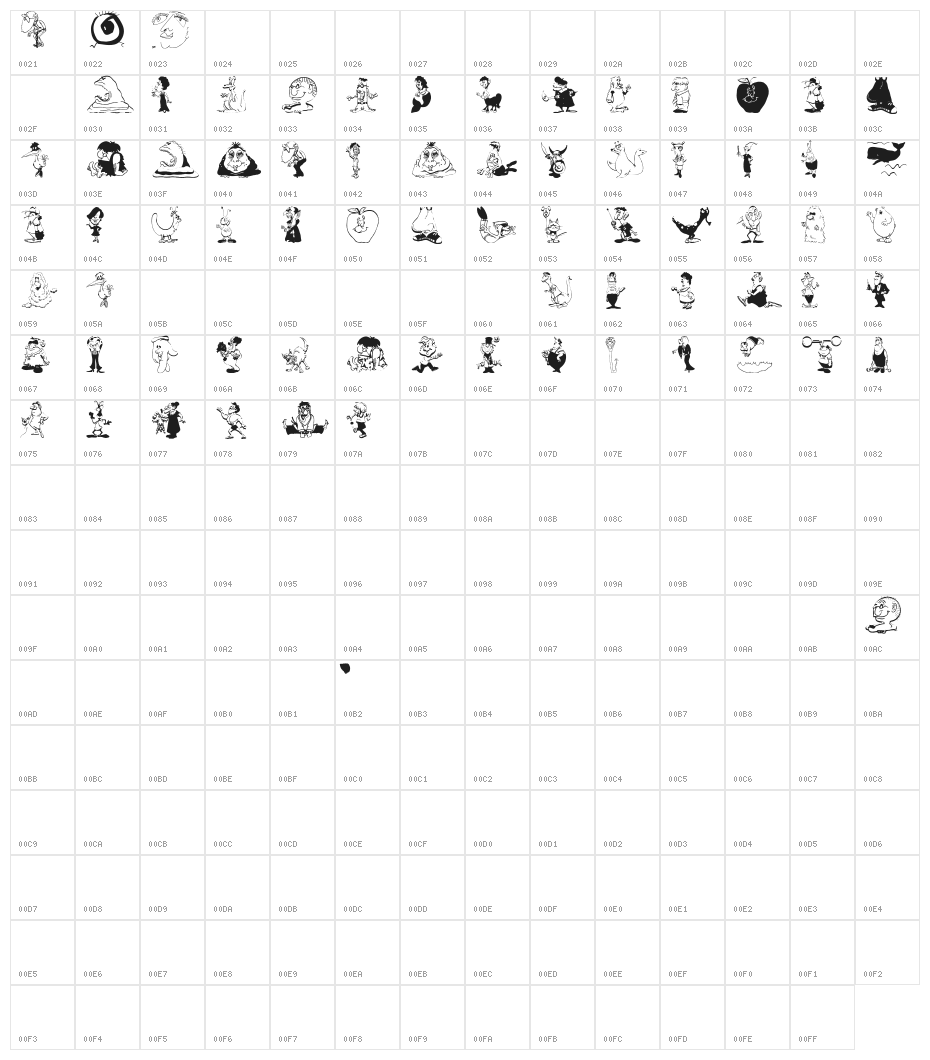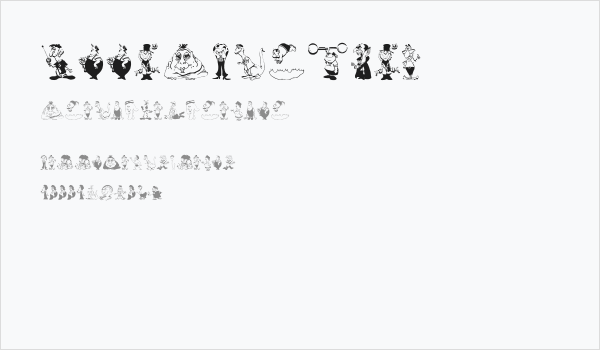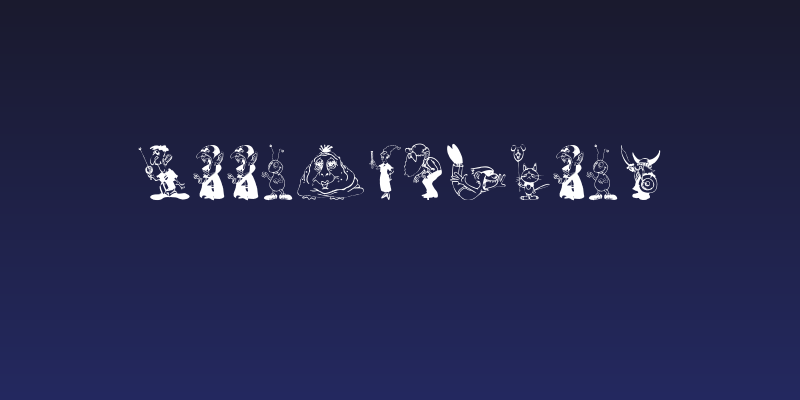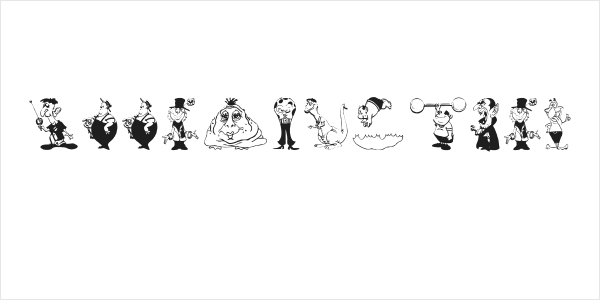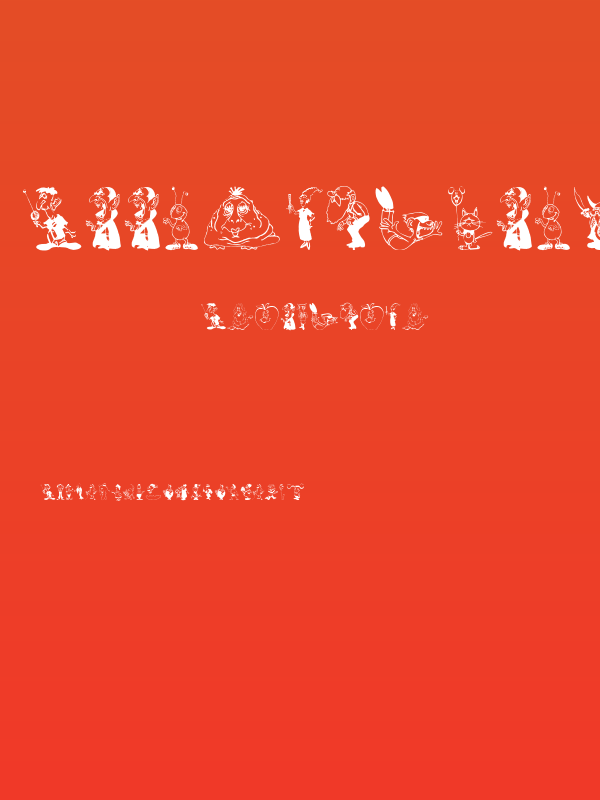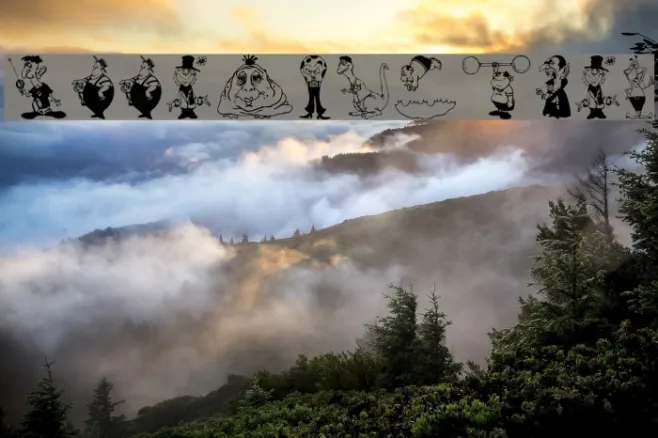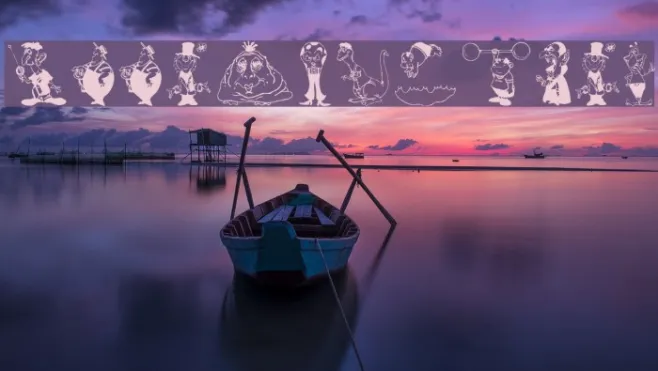
ToonCharsOne Font
ToonCharsOne Description
A highly decorative and playful collection of hand-drawn cartoon characters, each glyph representing a unique whimsical figure or creature instead of traditional alphanumeric forms. The style is loose, exaggerated, and humorous, with a variety of line weights and expressive poses.
| Overall Style | Decorative, Playful, Whimsical |
| Use Case | Display, Logos, Themed event materials, Posters |
| Proposed Projects | Children’s books, comic strips, party invitations, playful branding, educational materials, novelty posters. |